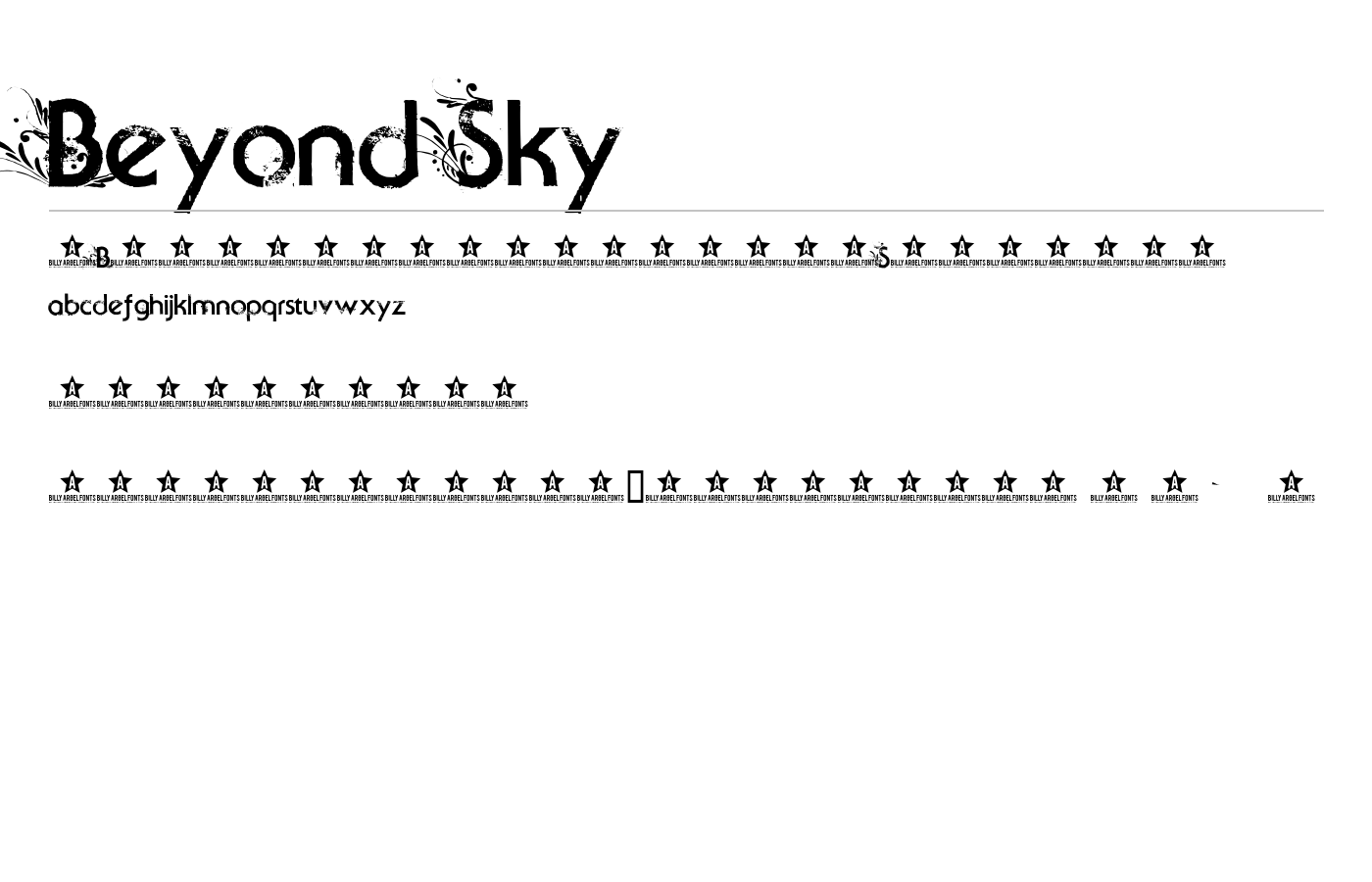
Beyond Sky is a bold, decorative sans serif font with a playful, distressed texture and unique ornamental flourishes that add an artistic touch. Its irregular, hand-crafted feel makes it perfect for creative projects, logos, posters, and designs seeking a distinctive, edgy vibe. This font stands out in headlines and branding where a lively, unconventional style is desired.
Beyond Sky Font
About Beyond Sky Font
| Font family | Beyond Sky Font |